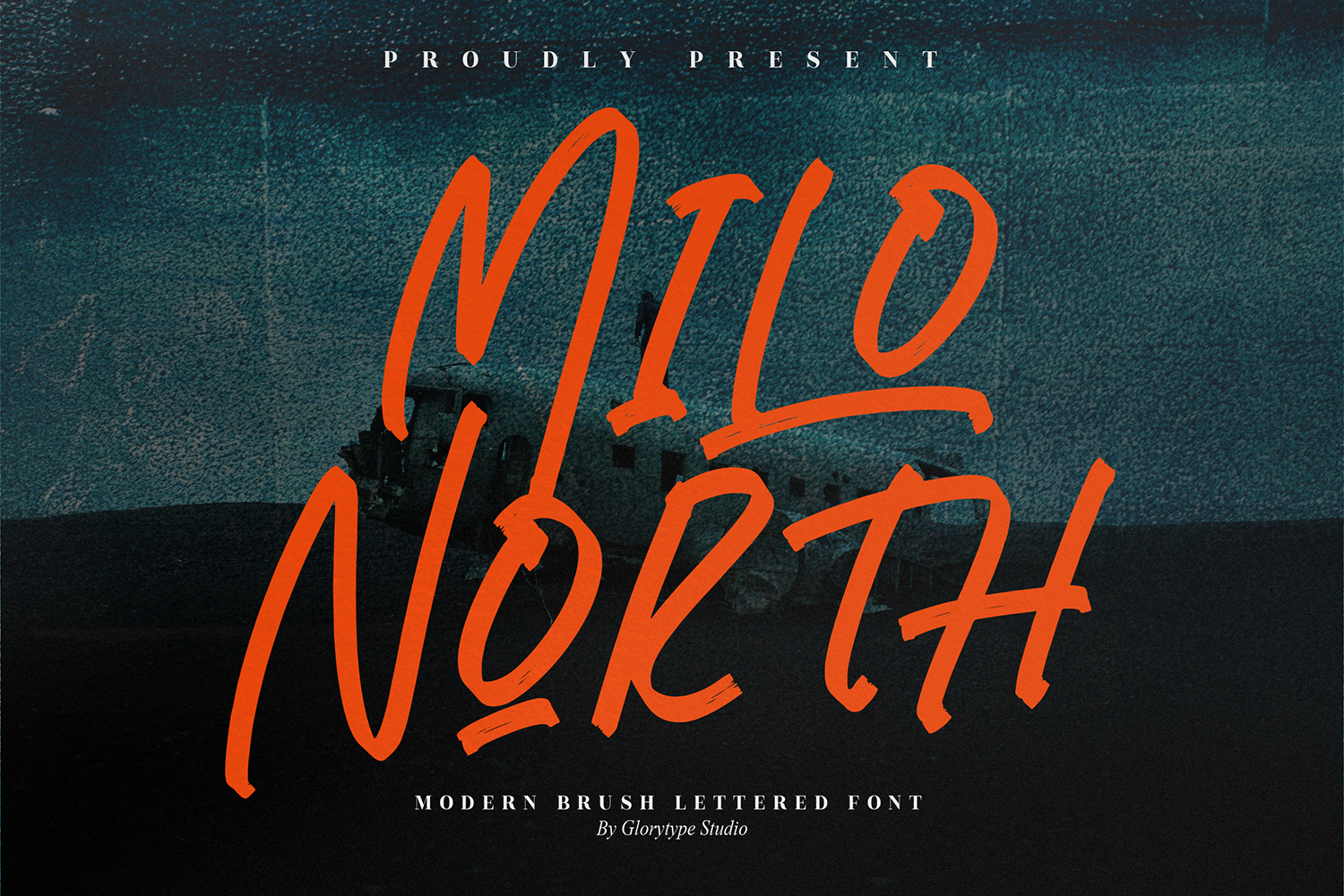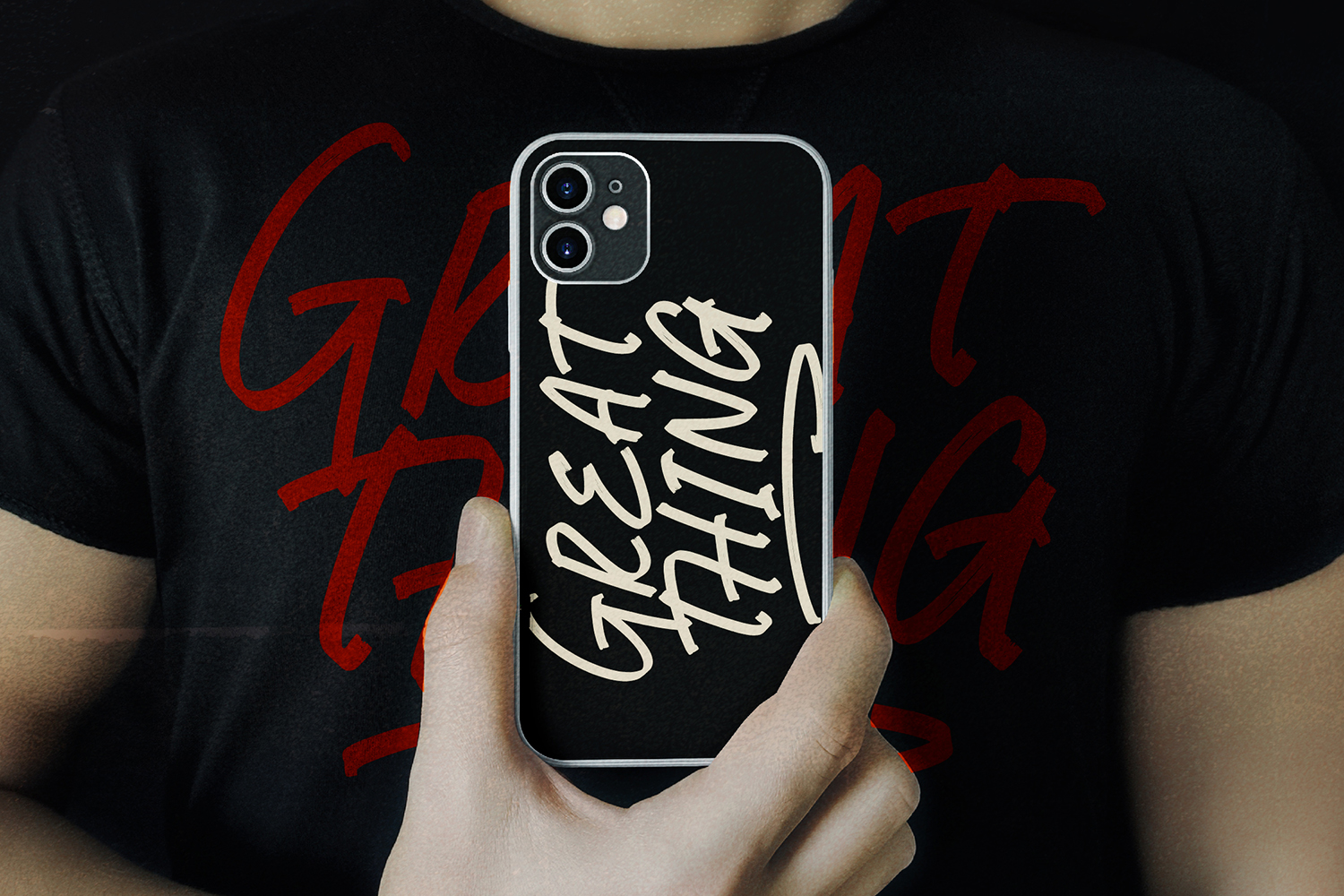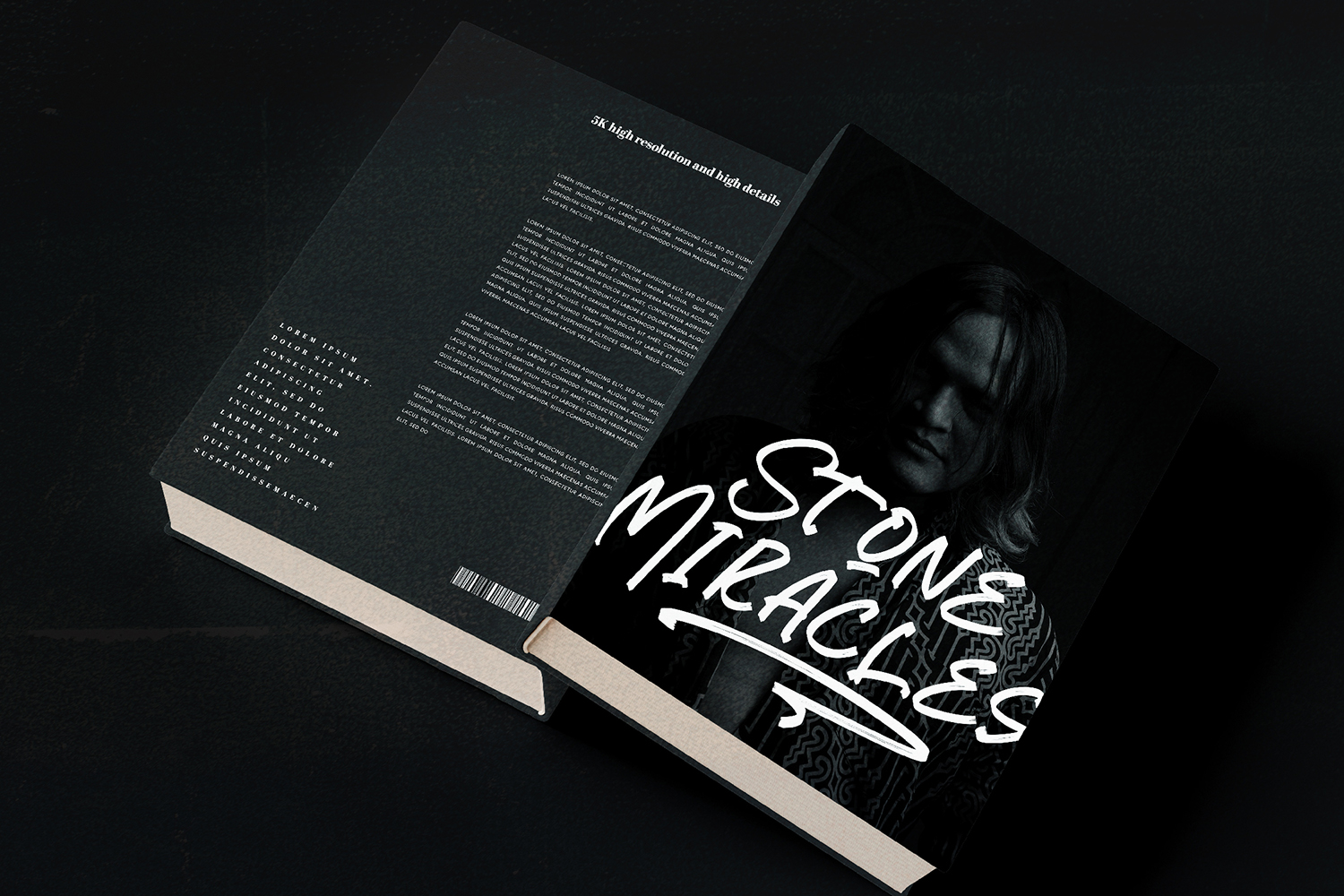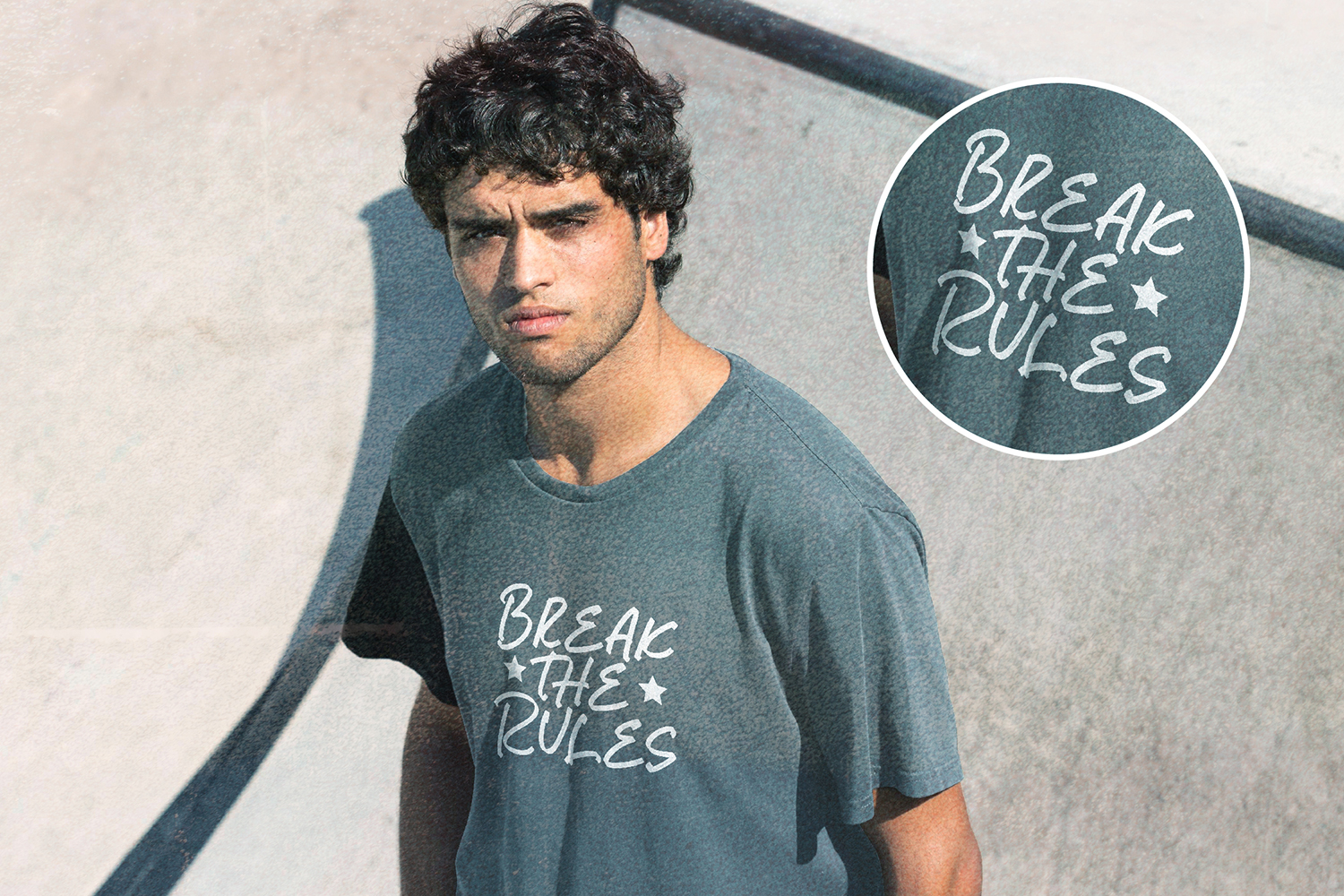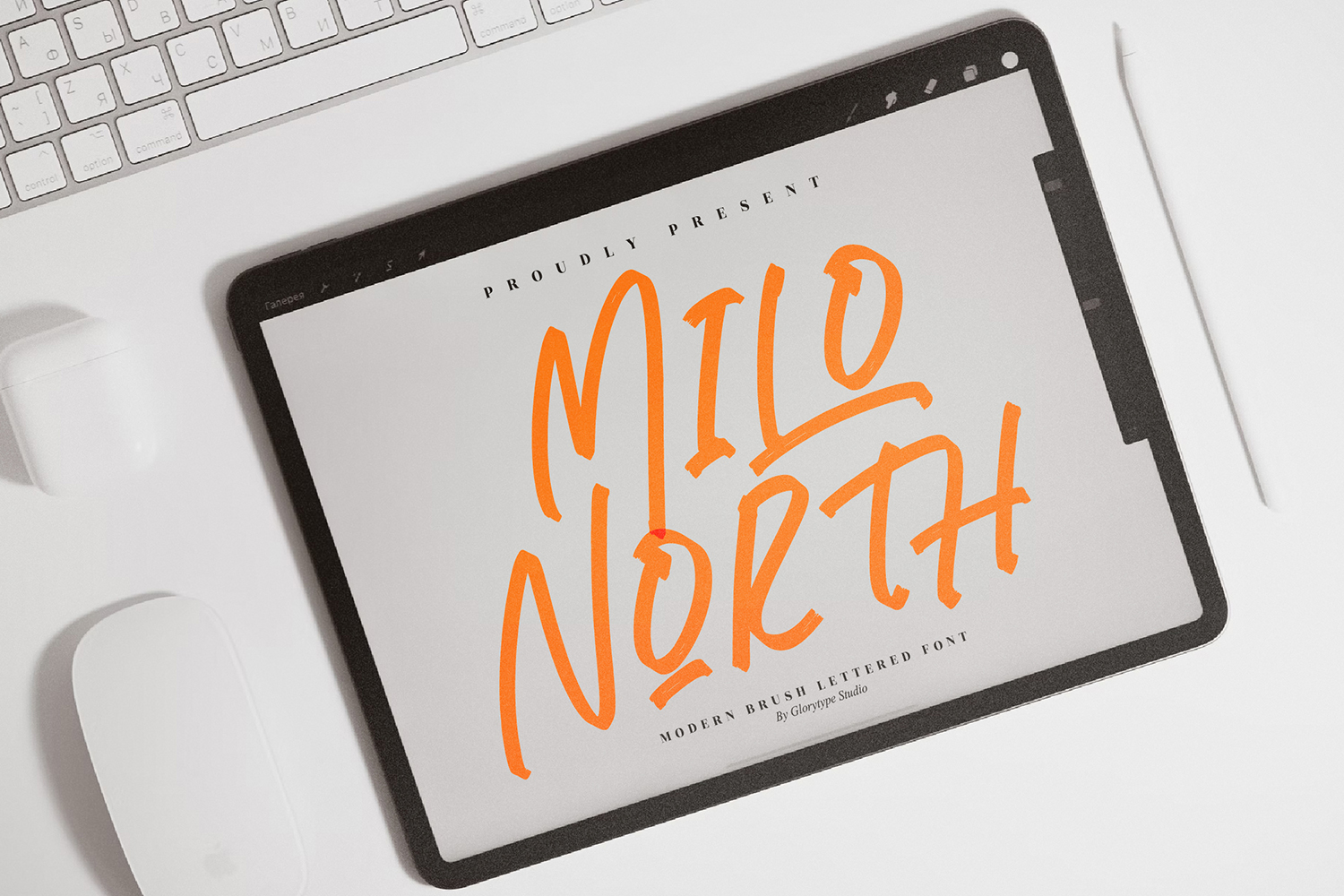
Milo North Free Font
Milo North Free Font is a modern brush lettered font suitable for any projects such as logos, branding projects, homeware designs, product packaging, mugs, quotes, posters, shopping bags, t-shirts, book covers, name cards, invitation cards, greeting cards, labels, photography, watermark, special events, and all your other lovely projects that need a beautiful script taste. This free typeface was designed by a talented Glorytype Studio. If you like it don’t forget to check out the full version.